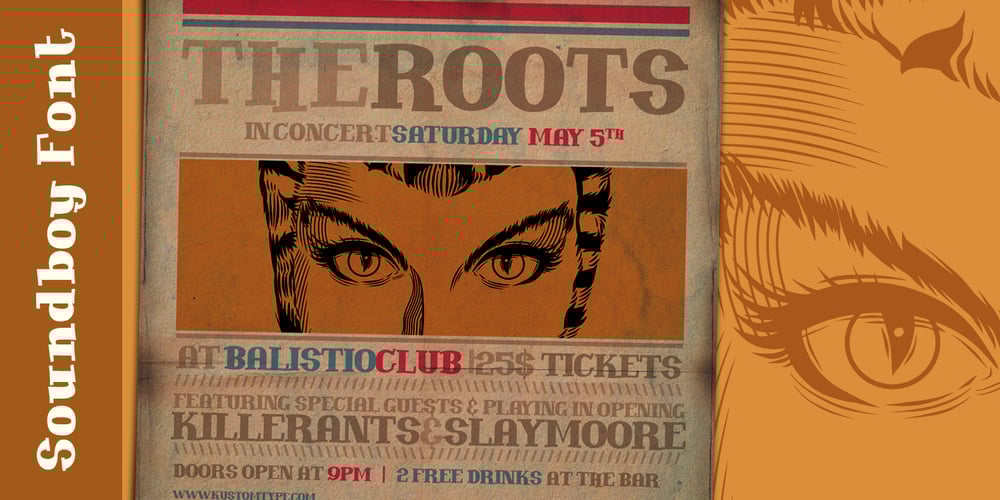
Soundboy Font Family was designed by Coert De Decker and published by Kustomtype. Soundboy contains 2 styles and family package options. Soundboy is an ode to Elvis Presley and his music. The font was drawn by hand from a number of images from the Blue Hawaii film and finished to perfection. The digitization was done with great care and the font was also provided with a number of extras such as ligatures. Soundboy is a playful and translatable font that at first sight has already caught everyone with a spontaneous and broad smile. Logos, house styles, magazines, covers, vinyl records, book covers, t-shirts, house styles and all kinds of other graphic expressions will look a lot happier. This font is more than welcome in this sour society. The packaging makes the consumer buy and Soundboy certainly contributes to that. Don’t wait for someone else to get it in your area, the best designs deserve the most beautiful fonts. Enjoy the “Soundboy font”, it will never let you down.